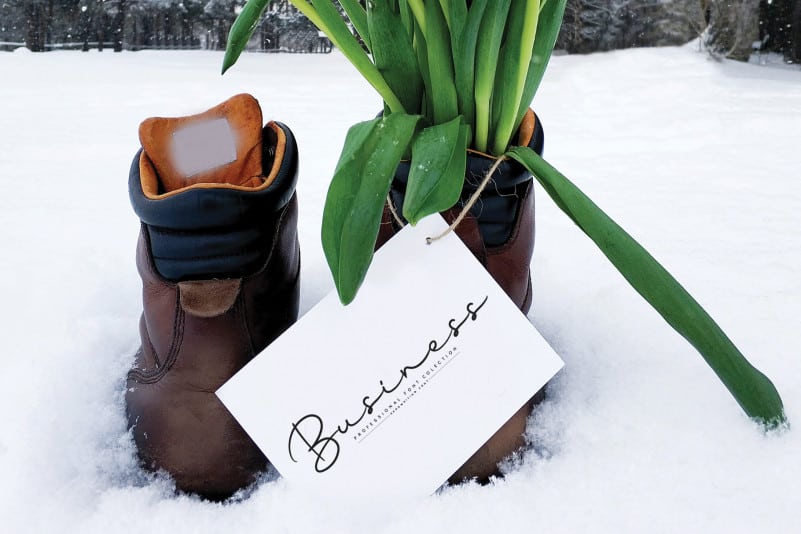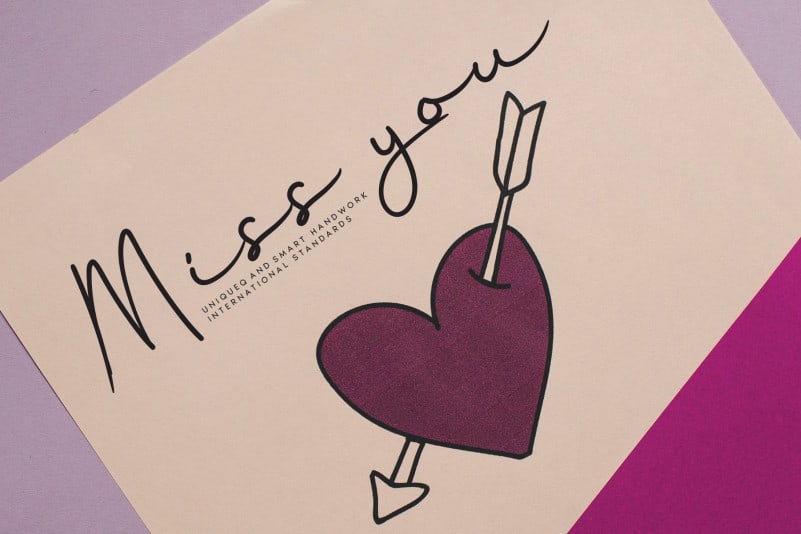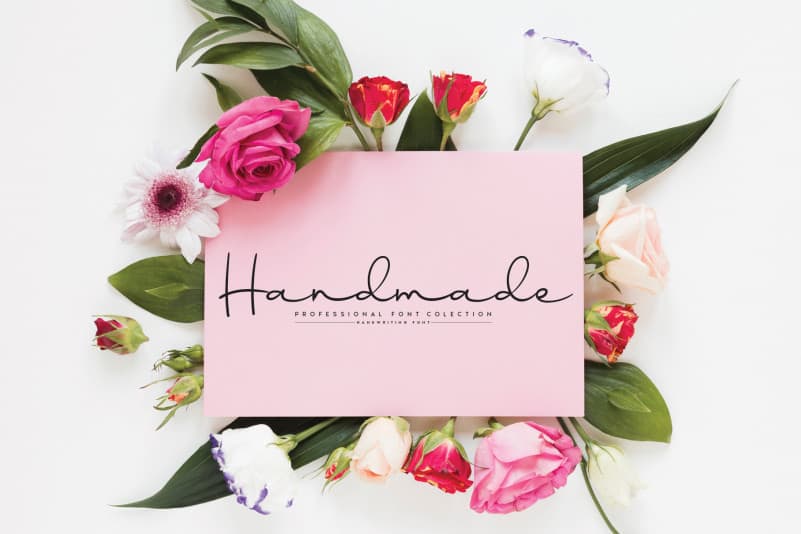
Wedding Handwritten Font
Wedding Handwritten Font is a flowing handwritten font, described by an elegant touch, perfect for your favorite projects. Fall in love with its incredibly distinct and timeless style and use it to create spectacular designs!